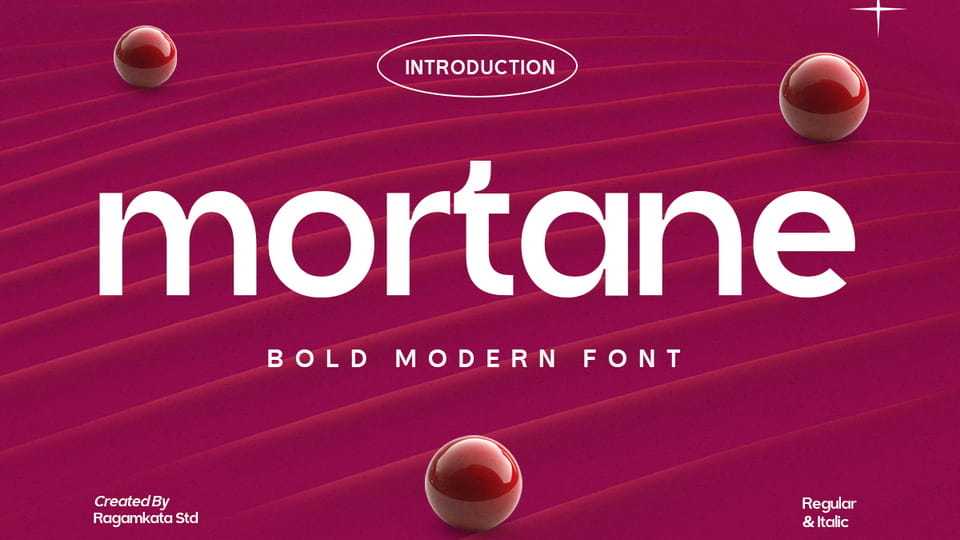
Download Mortane font, a bold modern typeface designed to deliver strong visual impact with clean geometric precision. Built with confident shapes, balanced proportions, and smooth curves, Mortane reflects contemporary design trends